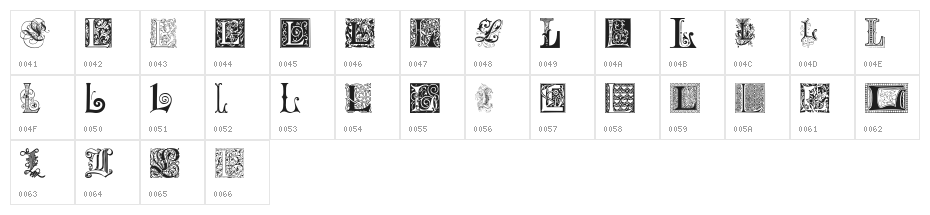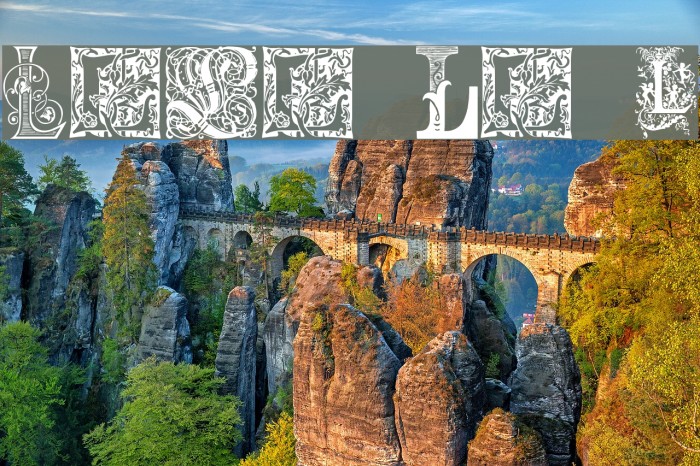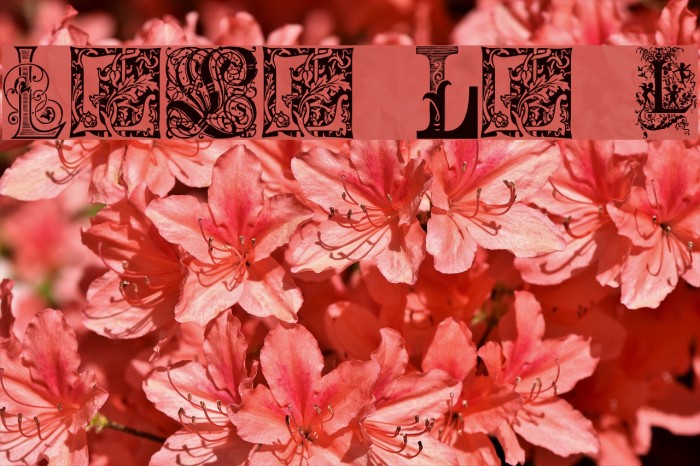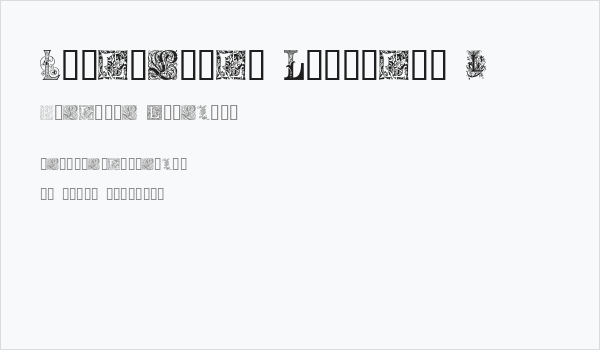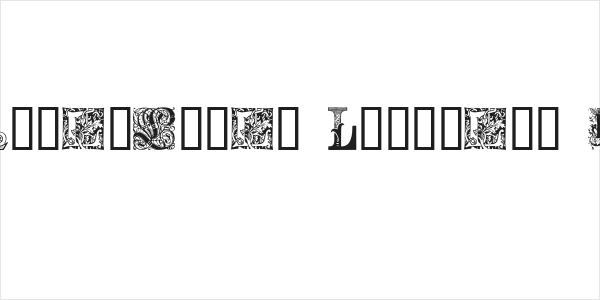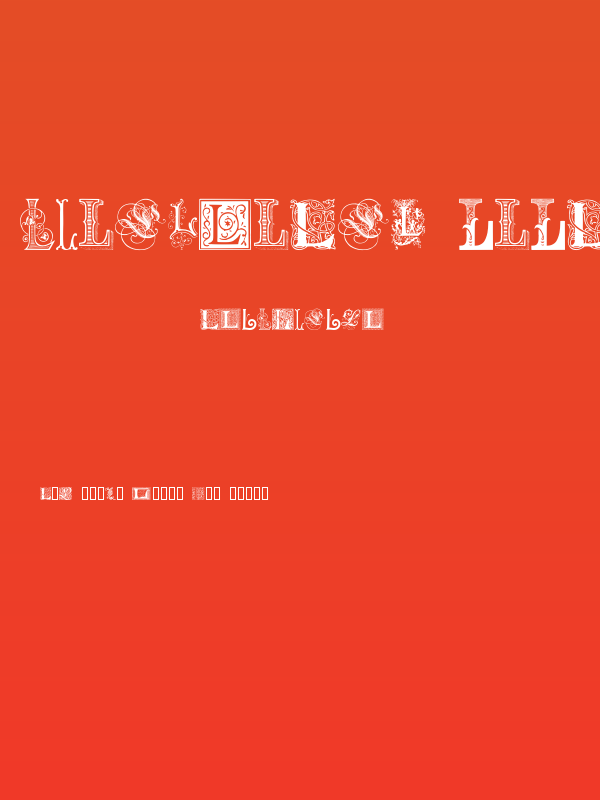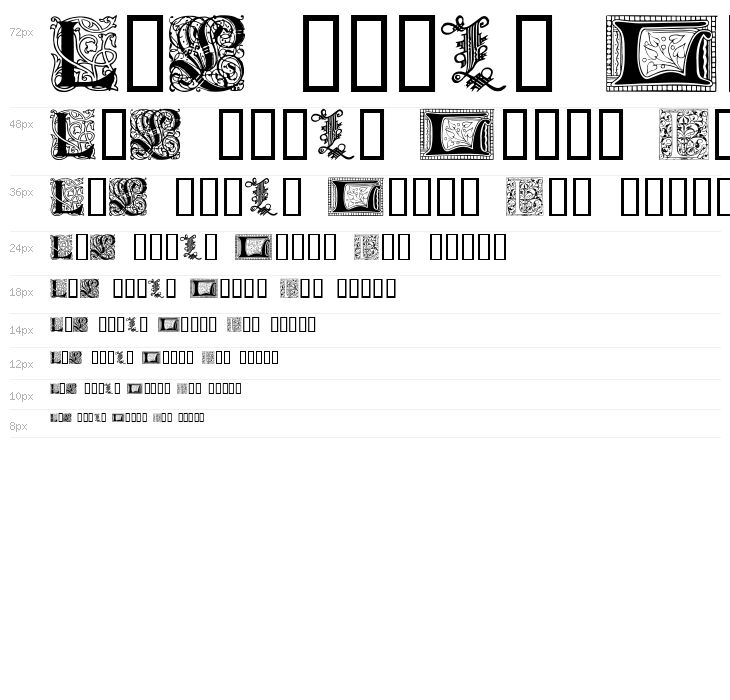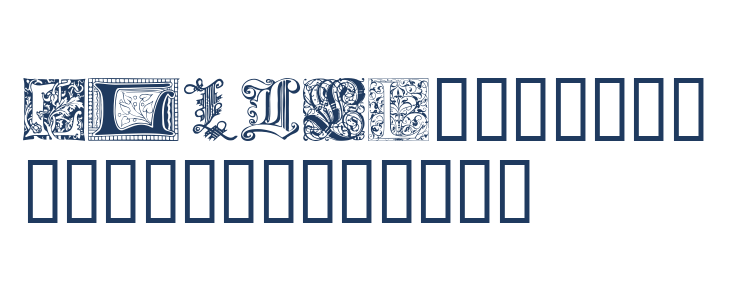
Ornamental Initials L Font
Ornamental Initials L Description
This font is a highly decorative and ornamental typeface, featuring intricate designs and embellishments within each letter. The characters are enclosed in ornate frames, with elaborate patterns and flourishes that give a sense of elegance and sophistication. The style is reminiscent of medieval manuscripts or vintage book covers, with a strong emphasis on artistic detail and craftsmanship. Each letter is unique, with varying motifs and decorations, making it ideal for projects that require a touch of historical or classical charm.
| Use Case | Logos, Headlines, Decorative purposes |
| Proposed Projects | Ideal for use in wedding invitations, vintage book covers, historical documents, or any project that requires a classical and elegant touch. |